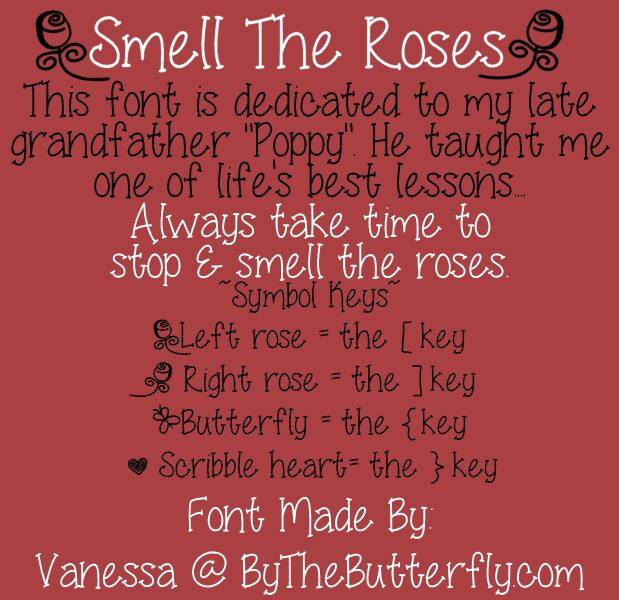
SmellTheRoses
Smell the Roses by Bythebutterfly.com is a free handwritten font with unusually tall, narrow letters and a light, wiry stroke. Its stretched forms sway between rounded loops and abrupt hooks, giving the writing an animated, slightly eccentric profile. Uneven heights and small curls keep the line lively.
Botanical drawings and loose ink illustrations echo its curling details, making the font a natural fit for garden event posters and handmade product labels. It also suits playful invitations and craft packaging. In magazine design, its elongated shapes can turn a cover line into an illustrated element beside sketches or decorative borders.